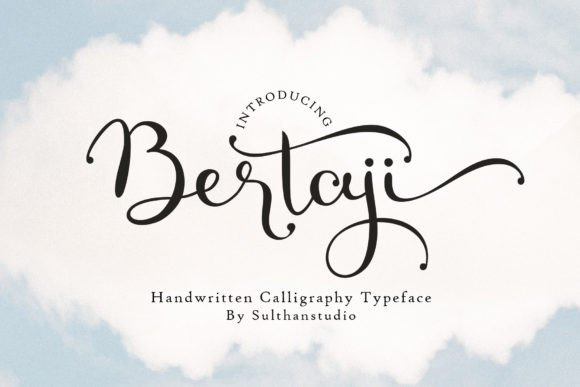
Welcome to the world of Bertaji, a stunning handwritten font family that will capture your heart with its unique combination of eccentricity, charm, and softness. Dive into the captivating realm of Bertaji, where every letter dances across the page with an alluring grace that will elevate your designs to extraordinary heights.
Crafted with meticulous care by the talented artisans at Sulthan Studio, Bertaji is more than just a font; it's an artistic journey that takes you beyond the boundaries of ordinary typography. With its intricate details, playful ligatures, and an array of alternate characters, Bertaji beckons you to explore a world of creative possibilities.
Step into the enchanting world of Bertaji, where your words will transform into captivating expressions of art. Create logos that leave an indelible mark, wedding invitations that exude elegance, and headlines that command attention. Unleash your creativity with t-shirts, letterheads, signage, labels, posters, and badges that radiate personality and charm.
Bertaji is not just a font; it's an experience. Experience the joy of crafting designs that resonate with your audience, designs that evoke emotion and leave a lasting impression. It's a font that empowers you to share your unique story, to communicate your message with a touch of magic and flair.
Immerse yourself in the world of Bertaji and discover a font that will ignite your imagination and transport you to new heights of creativity. With its PUA encoding, accessing the full range of glyphs and ligatures is a breeze, allowing you to effortlessly add intricate details and stunning flourishes to your designs.
Join the countless designers who have fallen in love with Bertaji's irresistible allure. Make Bertaji your creative companion and embark on a journey where every design becomes a masterpiece, where every word speaks volumes. Embrace the Bertaji experience today and unlock the limitless possibilities that await you.